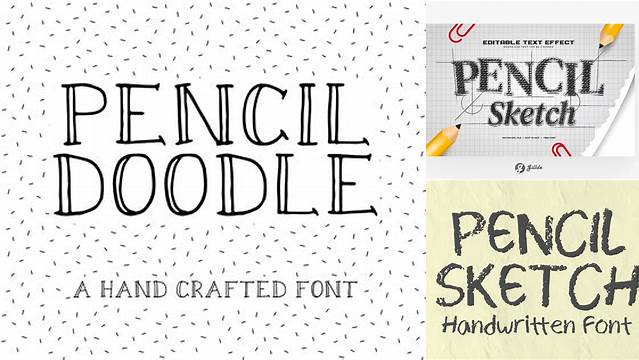
Pencil Fonts: Add A Hand-Drawn Touch To Your Designs
Are you looking to infuse your designs with a touch of authenticity and personality? Look no further than pencil fonts! These unique typefaces mimic the charming, hand-drawn aesthetic of pencil strokes, adding a warm and inviting feel to any project. In this comprehensive guide, we'll delve into the world of pencil fonts, exploring their diverse styles, best uses, and where to find the perfect one for your needs. Whether you're a seasoned designer or just starting out, understanding the power of pencil fonts will undoubtedly elevate your creative endeavors. So, let's dive in and discover how to harness the magic of hand-drawn typography!
What are Pencil Fonts?
Pencil fonts are digital typefaces designed to emulate the look and feel of handwriting or drawing done with a pencil. This means they often feature slightly uneven lines, subtle variations in stroke weight, and a generally less polished appearance compared to traditional, more formal fonts. The beauty of pencil fonts lies in their ability to convey a sense of authenticity, warmth, and personality. They evoke a human touch, making them ideal for projects where you want to create a connection with your audience. Think about the feeling you get when you see a handwritten note – that's the kind of emotion pencil fonts can bring to your designs.
Key Characteristics of Pencil Fonts:
- Hand-Drawn Aesthetic: The most defining characteristic is their resemblance to actual pencil strokes. This includes subtle imperfections, variations in line thickness, and a generally less structured appearance.
- Warm and Inviting Feel: Pencil fonts exude a sense of warmth and approachability, making them perfect for projects that aim to connect with the audience on a personal level.
- Versatility: While often associated with casual and informal designs, pencil fonts can be surprisingly versatile. There's a wide range of styles available, from playful and whimsical to more refined and elegant.
- Unique Personality: Each pencil font has its own distinct personality, influenced by the style of handwriting it emulates. This allows you to choose a font that perfectly matches the tone and message of your project.
Different Styles of Pencil Fonts
The world of pencil fonts is incredibly diverse, offering a wide array of styles to suit various design needs. Understanding these different styles will help you choose the perfect font for your project and ensure that it aligns with your overall aesthetic. Let's explore some of the most popular categories:
1. Casual and Playful Pencil Fonts
These fonts are characterized by their relaxed and informal appearance. They often feature rounded edges, bouncy baselines, and a whimsical feel. Casual pencil fonts are perfect for projects that need a friendly and approachable vibe, such as children's books, greeting cards, or blog headers. They're also great for adding a touch of fun to social media graphics or personal websites. Imagine a playful pencil font used for the title of a children's storybook – it instantly sets a lighthearted and engaging tone. These fonts are generally easy to read and can add a touch of charm to any design.
2. Elegant and Refined Pencil Fonts
Despite the inherent informality of pencil fonts, some styles manage to exude elegance and sophistication. These fonts often feature thinner strokes, more delicate lines, and a more controlled appearance. Refined pencil fonts are ideal for projects that require a touch of personality without sacrificing professionalism. Think wedding invitations, branding materials for creative businesses, or even website body text where you want to add a subtle human touch. They can also be used effectively in logos to create a unique and memorable brand identity. The key is to choose a font that balances the hand-drawn aesthetic with a sense of polish and sophistication.
3. Bold and Chunky Pencil Fonts
For projects that demand attention, bold and chunky pencil fonts are an excellent choice. These fonts feature thick strokes and a strong visual presence, making them perfect for headlines, posters, and other display purposes. They can convey a sense of energy, excitement, and playfulness, making them ideal for projects targeting a younger audience or those with a vibrant and dynamic feel. Imagine a bold pencil font used for the title of a music festival poster – it immediately grabs attention and creates a sense of anticipation. However, it's important to use these fonts sparingly, as their strong visual impact can be overwhelming if overused.
4. Realistic Handwriting Pencil Fonts
These fonts strive to replicate the look of genuine handwriting as closely as possible. They often feature subtle variations in letterforms, natural-looking connections between letters, and a generally imperfect appearance. Realistic handwriting pencil fonts are perfect for adding a personal touch to projects, such as thank-you notes, invitations, or even website testimonials. They can also be used to create a sense of authenticity in branding materials or marketing campaigns. The goal is to choose a font that looks convincingly handwritten, as if it were penned by a real person. This can help build trust and rapport with your audience.
Best Uses for Pencil Fonts
Pencil fonts are incredibly versatile and can be used in a wide range of projects. However, some applications are particularly well-suited to their unique aesthetic. Here are some of the best uses for pencil fonts:
1. Branding and Logo Design
In the world of branding, standing out from the crowd is crucial. Pencil fonts can provide a unique and memorable touch to your brand identity. They convey authenticity, creativity, and a human touch, which can be particularly appealing to customers looking for brands with personality. A pencil font logo can be especially effective for businesses in creative industries, such as design studios, art galleries, or handmade goods shops. The hand-drawn aesthetic aligns perfectly with the values of these businesses, creating a cohesive and compelling brand image. However, it's important to choose a pencil font that is legible and scalable, ensuring that it looks good in both large and small sizes.
2. Invitations and Greeting Cards
For personal correspondence, pencil fonts are a natural choice. They add a warm and personal touch to invitations, greeting cards, thank-you notes, and other handwritten materials. Whether you're designing wedding invitations, birthday cards, or holiday greetings, a pencil font can help convey your sentiments in a heartfelt and genuine way. The hand-drawn aesthetic creates a sense of intimacy and care, making the recipient feel special. Choose a font that matches the tone of your message – a playful font for a casual invitation, or a more elegant font for a formal occasion. The key is to choose a font that complements the overall design and message of your card.
3. Website Design
Pencil fonts can add a touch of personality and uniqueness to your website design. They can be used for headlines, subheadings, body text, or even navigation menus, depending on the overall style and tone of your site. A pencil font can help your website stand out from the crowd and create a memorable user experience. They are particularly effective for websites targeting creative audiences, such as blogs, portfolios, or online stores selling handmade goods. However, it's crucial to use pencil fonts sparingly and strategically, ensuring that they don't detract from the website's readability and usability. Choose fonts that are easy to read on screen and that complement the overall design of your site.
4. Social Media Graphics
In the fast-paced world of social media, capturing attention is essential. Pencil fonts can help your graphics stand out from the noise and convey your message in a unique and engaging way. They are particularly effective for creating social media posts that feel personal and authentic. Use them for quotes, announcements, promotions, or even just to add a touch of personality to your brand's social media presence. A well-chosen pencil font can help your content feel more relatable and approachable, encouraging engagement and interaction. However, it's important to ensure that your fonts are legible on small screens and that they complement the overall aesthetic of your social media feed.
Where to Find Pencil Fonts
Fortunately, there are numerous resources available for finding the perfect pencil font for your project. Here are some popular options:
1. Font Foundries and Marketplaces
Numerous font foundries and marketplaces specialize in creating and distributing high-quality typefaces. Websites like MyFonts, Creative Market, and Fontspring offer a vast selection of pencil fonts, both free and premium. These platforms provide a wide range of styles and licenses, allowing you to find the perfect font for your needs and budget. They also offer tools for previewing fonts and comparing different options, making it easier to make an informed decision. When browsing these platforms, be sure to pay attention to the font license, ensuring that it covers your intended use case.
2. Free Font Websites
If you're on a tight budget, several websites offer a selection of free pencil fonts. Websites like Google Fonts, DaFont, and Fontspace provide a variety of free options, ranging from casual handwriting styles to more refined and elegant designs. While free fonts can be a great resource, it's important to be mindful of the font license and ensure that it allows for commercial use if necessary. Additionally, the quality of free fonts can vary, so it's important to carefully review the font before using it in your project.
3. Design Software Subscriptions
Many design software subscriptions, such as Adobe Creative Cloud, include access to a library of fonts. Adobe Fonts, for example, offers a wide selection of high-quality typefaces, including numerous pencil fonts. These fonts are often included as part of your subscription, making them a cost-effective option for designers. Additionally, these platforms typically offer seamless integration with your design software, making it easy to use the fonts in your projects. However, it's important to be aware of the terms of your subscription and ensure that you have the necessary rights to use the fonts for your intended purposes.
Tips for Using Pencil Fonts Effectively
While pencil fonts are incredibly versatile, it's important to use them strategically to maximize their impact. Here are some tips for using pencil fonts effectively in your designs:
1. Consider the Context
Before choosing a pencil font, consider the context of your project. What is the overall tone and message you want to convey? What is your target audience? A playful font might be perfect for a children's book, but it might not be suitable for a formal business presentation. Choose a font that aligns with the overall style and tone of your project, ensuring that it effectively communicates your message.
2. Pair with Complementary Fonts
Pencil fonts often work best when paired with complementary fonts. A clean and simple sans-serif font can provide a nice contrast to the hand-drawn aesthetic of a pencil font, creating a visually appealing and balanced design. Experiment with different font pairings to find a combination that works well together. A classic pairing is a pencil font headline with a legible sans-serif body text, ensuring readability while adding a touch of personality. The key is to create a harmonious balance between the different typefaces.
3. Ensure Legibility
While pencil fonts are charming, legibility is crucial. Choose a font that is easy to read, especially for body text or smaller sizes. Avoid fonts with overly intricate or stylized letterforms, as they can be difficult to decipher. Test your font choices on different devices and screen sizes to ensure that they remain legible. Consider the spacing between letters and lines, adjusting as necessary to optimize readability. A beautiful font is useless if your audience can't read it.
4. Use Sparingly
Like any design element, pencil fonts should be used sparingly. Overusing them can detract from their impact and create a cluttered or overwhelming design. Use pencil fonts for key elements, such as headlines, logos, or short bursts of text. Reserve more traditional fonts for body text and other longer passages. This will help create a balanced and visually appealing design, allowing the pencil font to shine without overwhelming the overall composition. Remember, less is often more when it comes to typography.
Pencil fonts are a powerful tool for adding personality, authenticity, and warmth to your designs. With their unique hand-drawn aesthetic, they can help you create projects that stand out from the crowd and connect with your audience on a personal level. By understanding the different styles of pencil fonts, their best uses, and how to use them effectively, you can unlock their creative potential and elevate your designs to the next level. So, go ahead and experiment with pencil fonts – you might be surprised at the magic they can bring to your projects!